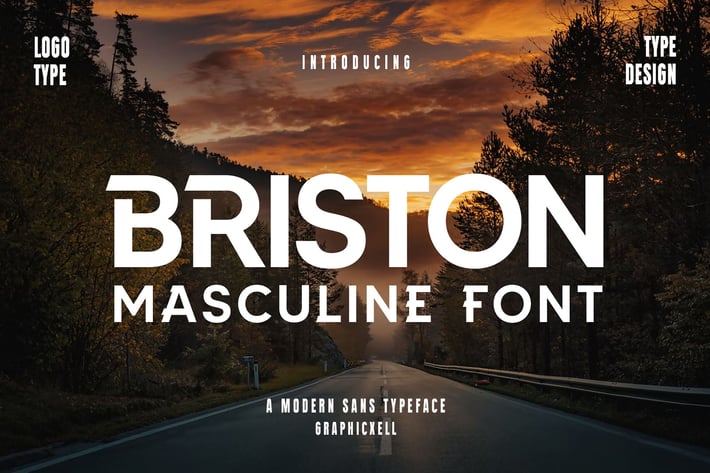
Briston Sans Serif Font Typeface
Briston Sans Serif Font Typeface – Modern, Clean, and Bold
The Briston Sans Serif Font is a modern and clean typeface designed to bring clarity and strength to your text. Its bold and simple shapes make it highly readable while adding a touch of confidence to your design. This font is ideal for headlines, logos, branding, and any project that needs a strong but approachable look.
With its clear, straight lines and balanced letterforms, Briston offers a professional and minimal style. It works well in both print and digital formats, providing excellent legibility at any size. Moreover, its sans serif nature keeps the design fresh and up-to-date, suitable for businesses, creative agencies, and tech brands.
One of the key strengths of Briston is its versatility. It easily adapts to different design themes, from clean corporate materials to modern lifestyle branding. The font’s bold style ensures your message stands out without overwhelming the viewer. Also, its simplicity makes it easy to pair with other fonts for a balanced look.
Here are the main features of the Briston Sans Serif Font Typeface:
- Bold, strong letterforms with clean edges
- Simple and clear shapes for easy reading
- Modern sans serif style for a fresh look
- Great for headlines, branding, and logos
- Works well in print and digital projects
To conclude, Briston Sans Serif is a reliable font that adds power and clarity to your designs. It’s perfect for anyone seeking a bold but neat font that keeps text readable and attractive. Additionally, it fits a wide range of creative needs, making it a must-have in your font collection.
The Briston Sans Serif Font is a modern and clean typeface designed to bring clarity and strength to your text. Its bold and simple shapes make it highly readable while adding a touch of confidence to your design. This font is ideal for headlines, logos, branding, and any project that needs a strong but approachable look.
With its clear, straight lines and balanced letterforms, Briston offers a professional and minimal style. It works well in both print and digital formats, providing excellent legibility at any size. Moreover, its sans serif nature keeps the design fresh and up-to-date, suitable for businesses, creative agencies, and tech brands.
One of the key strengths of Briston is its versatility. It easily adapts to different design themes, from clean corporate materials to modern lifestyle branding. The font’s bold style ensures your message stands out without overwhelming the viewer. Also, its simplicity makes it easy to pair with other fonts for a balanced look.
Here are the main features of the Briston Sans Serif Font Typeface:
- Bold, strong letterforms with clean edges
- Simple and clear shapes for easy reading
- Modern sans serif style for a fresh look
- Great for headlines, branding, and logos
- Works well in print and digital projects
To conclude, Briston Sans Serif is a reliable font that adds power and clarity to your designs. It’s perfect for anyone seeking a bold but neat font that keeps text readable and attractive. Additionally, it fits a wide range of creative needs, making it a must-have in your font collection.